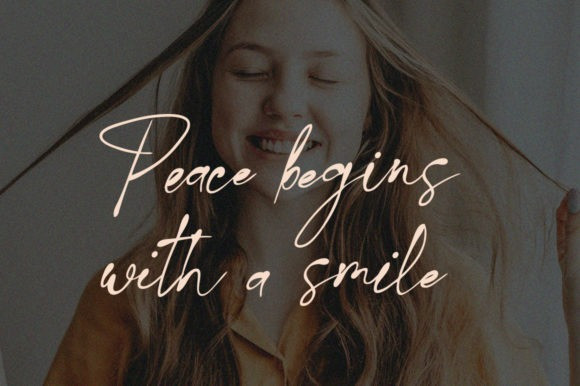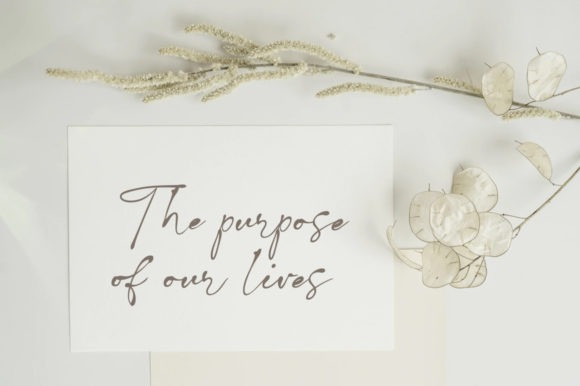
Hey lovely Script Font
Hey Lovely is a beautiful handwritten font with a romantic theme. Whether you’re looking for fonts for social media or calligraphy scripts for DIY projects, this font will turn any creative idea into a true piece of art!